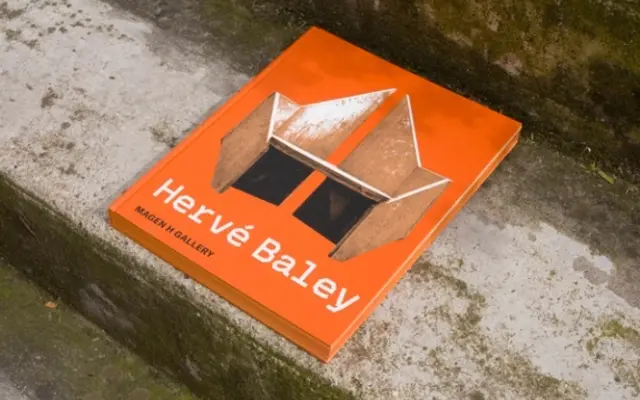
Anto Rounded Air
b•v-h type · André Baldinger & Toan Vu-Huu · 2024
A rounded geometric sans with airy proportions, drawn by André Baldinger and Toan Vu-Huu as part of the broader Anto family originally conceived for Parisian arts institutions.
Developed from a 2017 visual identity proposal for the contemporary art centre Bétonsalon in Paris, Anto Rounded Air is the open, experimental offshoot of the Anto Rounded subfamily. Where its siblings share a common skeleton rooted in early grotesque proportions, the Air variant introduces a lighter, more expansive character. Four weights from Light to Bold are accompanied by 801 glyphs per style, with a full suite of OpenType features including multiple figure sets, framed and circled numbers, and stylistic alternates.
Anto Rounded Air is a geometric sans inspired by early grotesque proportions, distinguished by rounded terminals and an airy, open construction that sets it apart from the angular Anto Plot sibling.